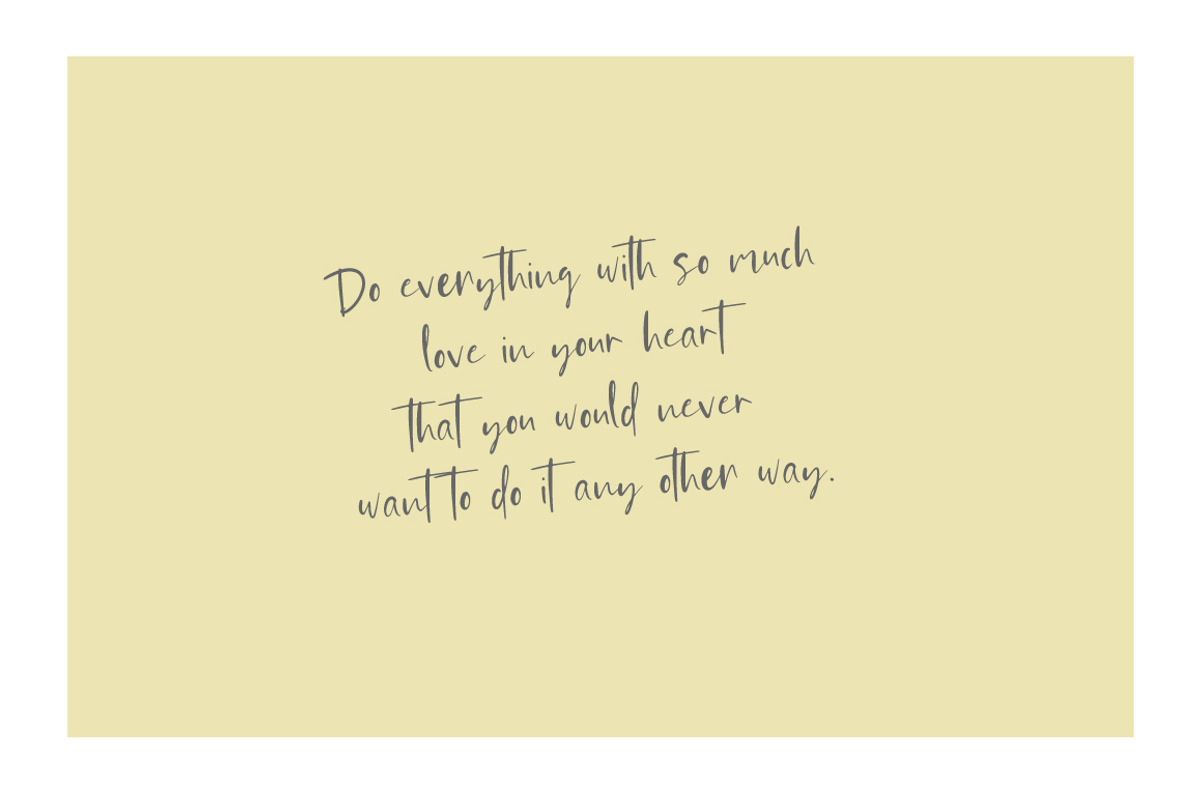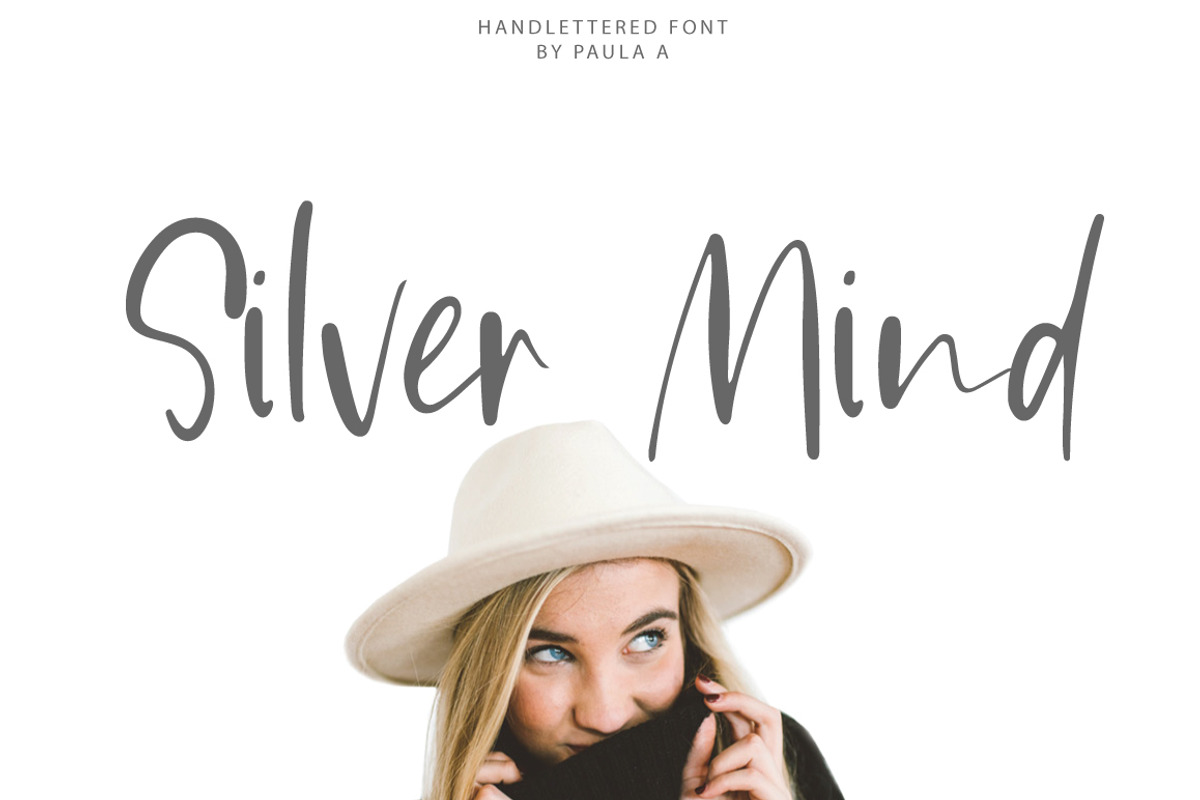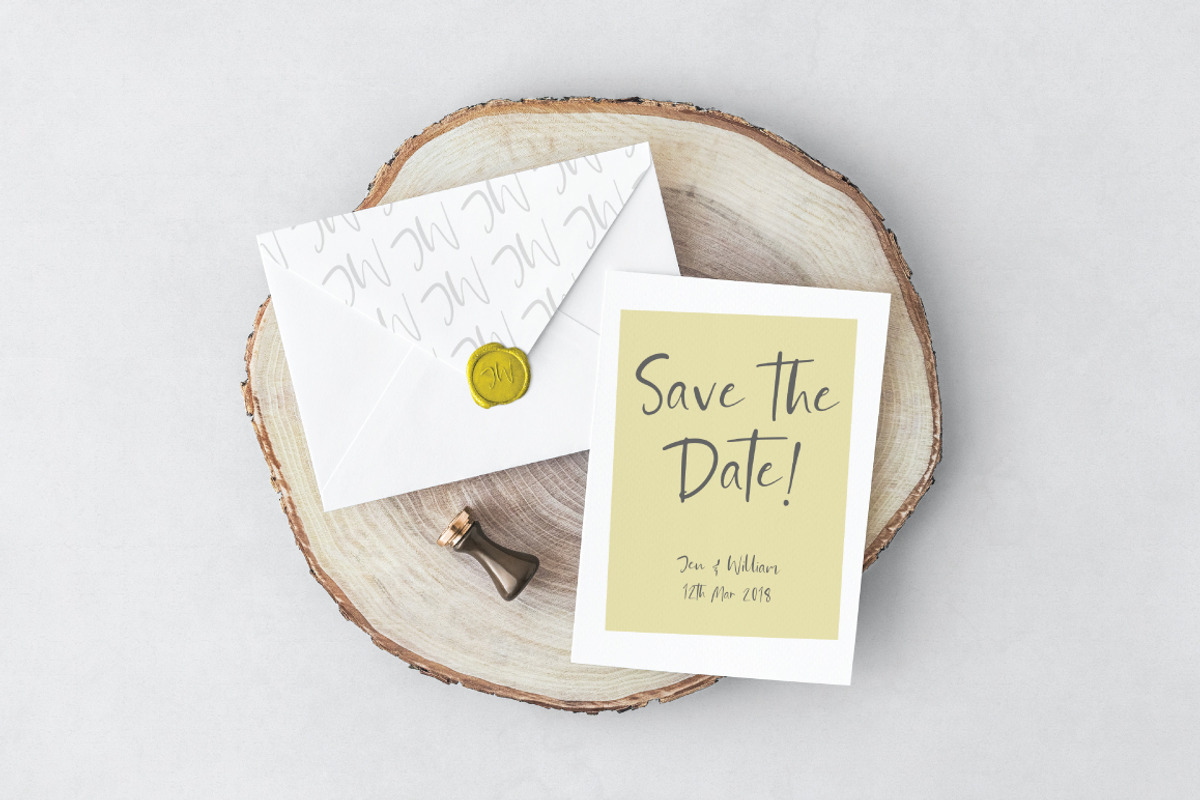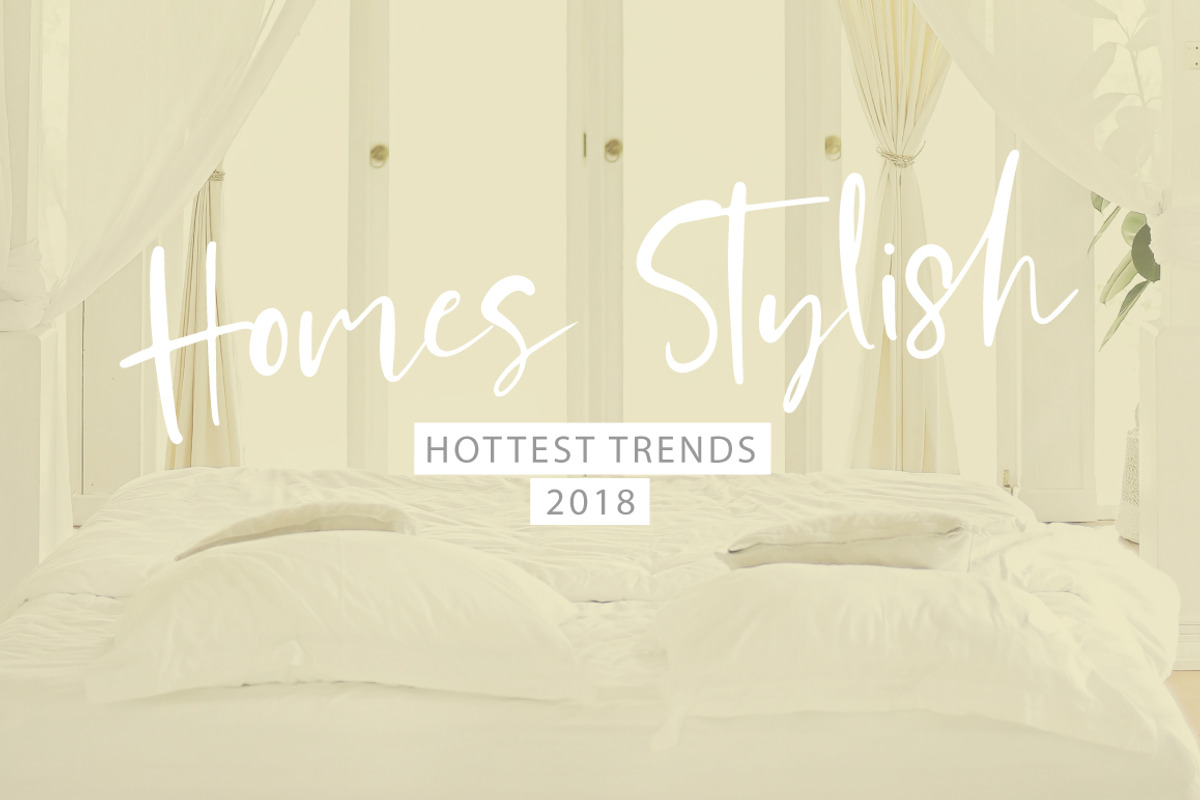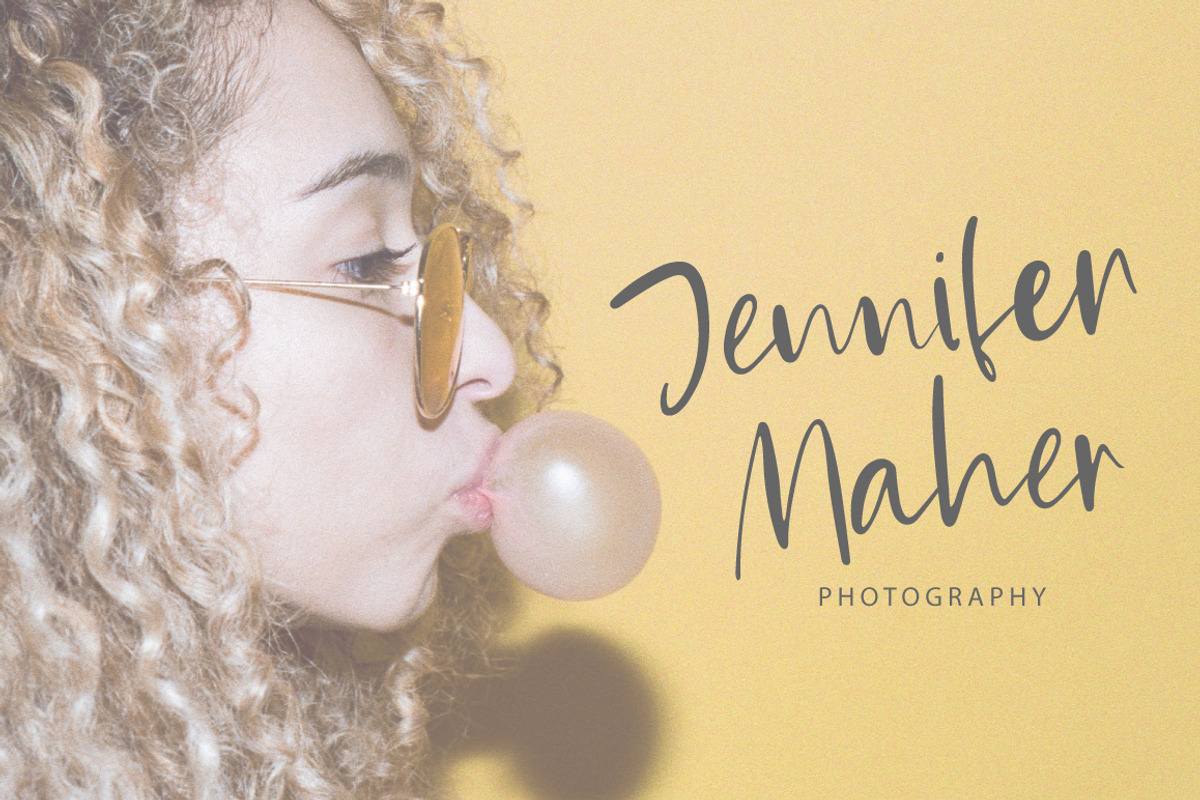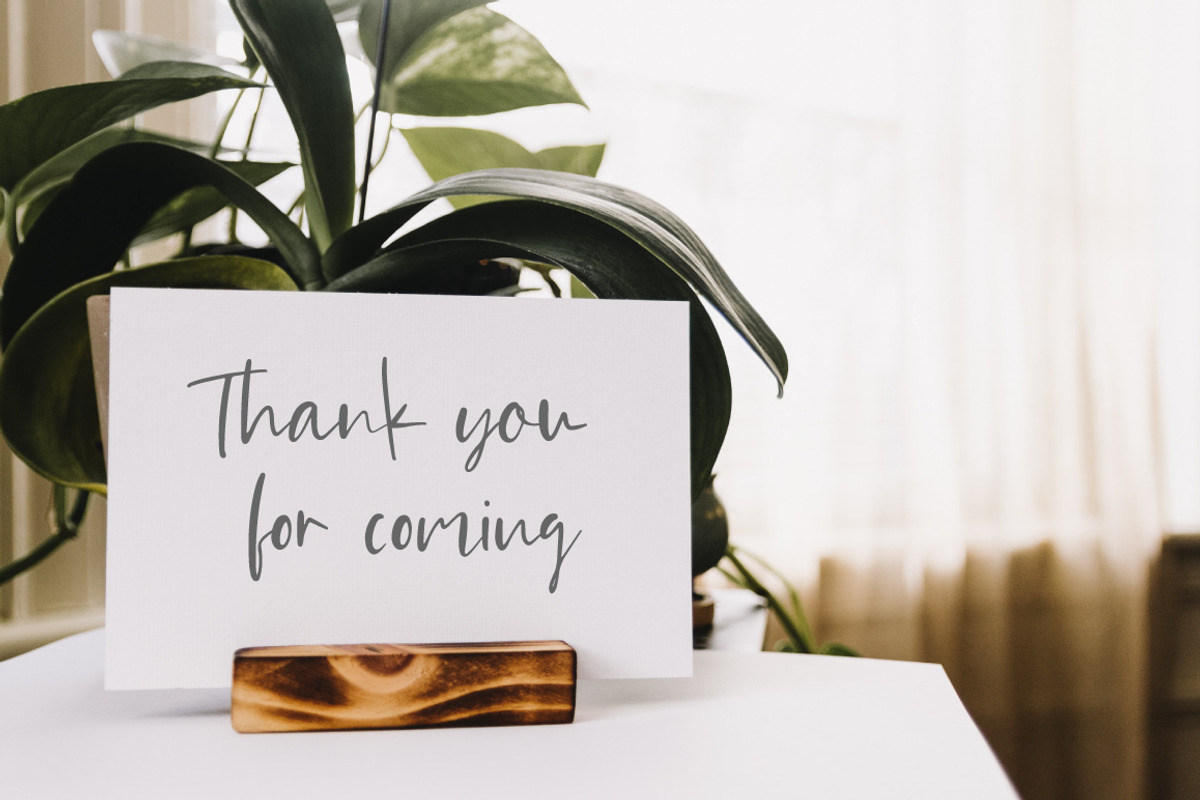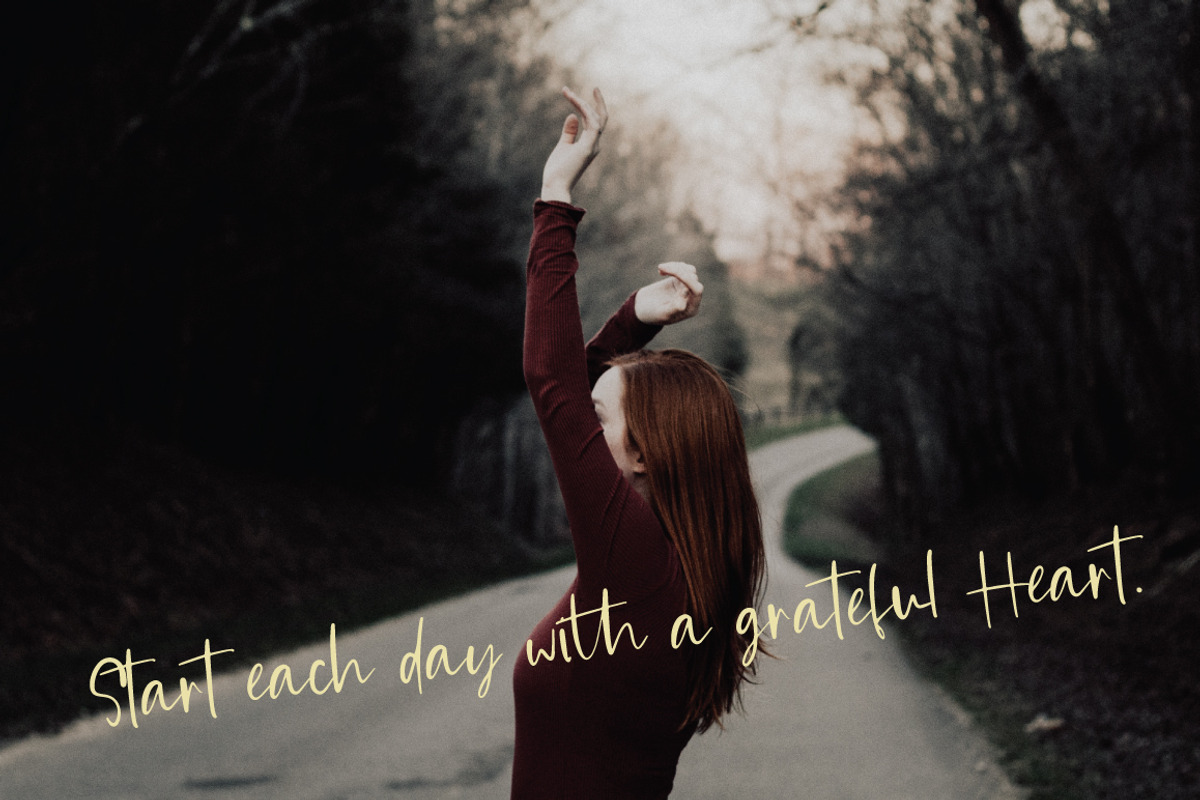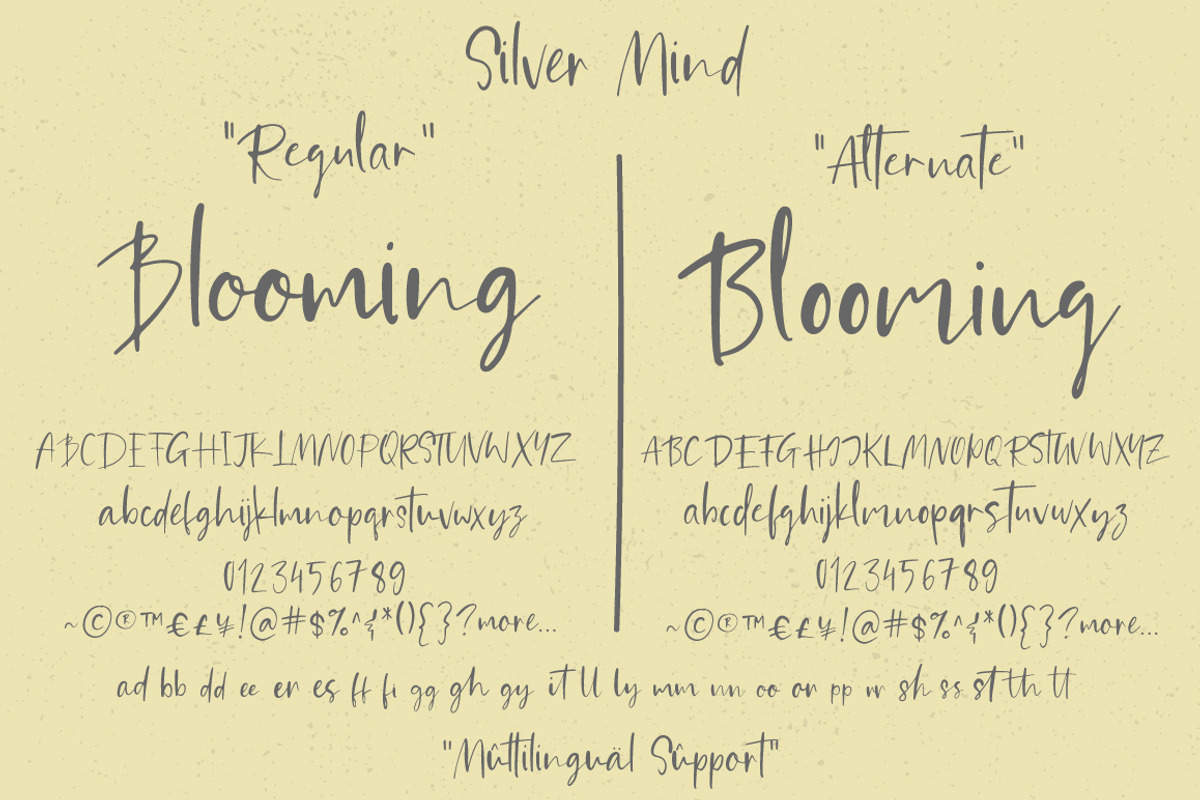
Silver Mind | Handlettered Font
Silver Mind is a Modern hand-lettered script font. Every single letter has been creative carefully and Perfectly for every project. This font is especially for you if you need to add tenderness to your project. Combine it with other fonts and add style to your project and a little romantic script designed for making your set of invitations, quotes, blog posts, and more completely beautiful
Multilingual support is included for Western European.(if something is missing or you've got a request please let me know and I'll try to add it to the next update)